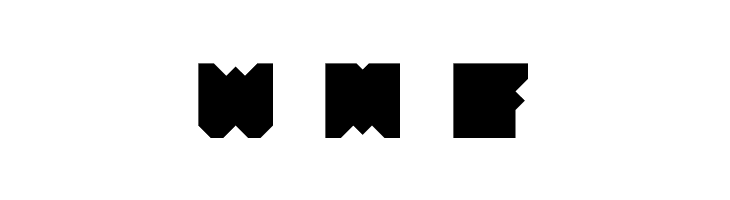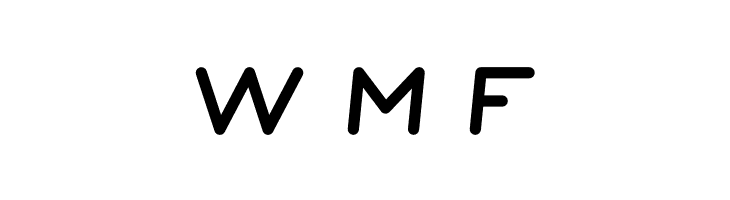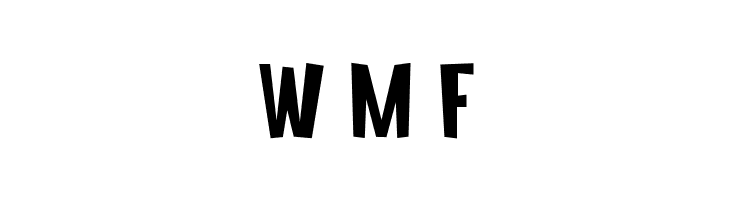
A bold, playful font with rounded, bubbly characters ideal for fun and retro designs.
A bold, modern font with geometric shapes and cut-out sections for a striking industrial look.
A playful, hand-drawn font with dynamic strokes and whimsical style.
A playful, decorative font with swirling uppercase and bold lowercase letters.
A bold, playful font with a hand-carved, rustic appearance.
A modern, rounded sans-serif font with smooth curves and balanced spacing.
A bold, rounded font with a modern and friendly appearance.
A bold, italicized font with rounded edges and a modern, dynamic style.
A modern, italicized font with smooth, rounded edges and a dynamic appearance.
A modern, geometric font with clean lines and uniform stroke width.
A sleek, modern italic font with a light weight and geometric structure.
A bold, playful font with rounded, hand-drawn characters.
A playful and whimsical font with rounded and angular elements, perfect for informal projects.
A playful, hand-drawn font with tall, narrow letters and a whimsical style.
A playful, curly font with bold strokes and decorative swirls.
Expressive handwritten script font.
A bold, playful script font with flowing, energetic letterforms.
A sleek, modern font with high contrast and elegant lines.
A fluid and elegant script font with connected, flowing strokes.
An elegant and flowing script font with dynamic, cursive strokes.
A bold, shadowed font with a dynamic, three-dimensional look.
A tall, narrow font with a striking, elegant design and consistent stroke width.
A tall, narrow font with minimal serifs and a vintage western style.
( Fonts by FreshtypeINK )
Elegant and playful script font.
( Fonts by Rantautype - Yudi Pratama Chandra - Personal-use only. For commercial use please contact owner. )
An elegant, calligraphic font with flowing, dynamic strokes.
A fluid and elegant cursive font with continuous, flowing strokes.
( Fonts by Idebareng )
Bold, casual handwritten script font.
( Fonts by Dhimas Habibie )
A bold, playful, hand-drawn font with a doodle-like style.
( Fonts by Noah Type - noahtype.com - Personal-use only. For commercial use please contact owner. )
A bold, geometric sans-serif font with a modern and minimalistic design.
An elegant serif font with high contrast and classic design elements.
An elegant serif italic font with medium contrast and refined letterforms.
A playful and elegant script font with a handwritten aesthetic.
An elegant, flowing script font with smooth, cursive strokes.
A modern, elegant font with clean lines and a sophisticated aesthetic.